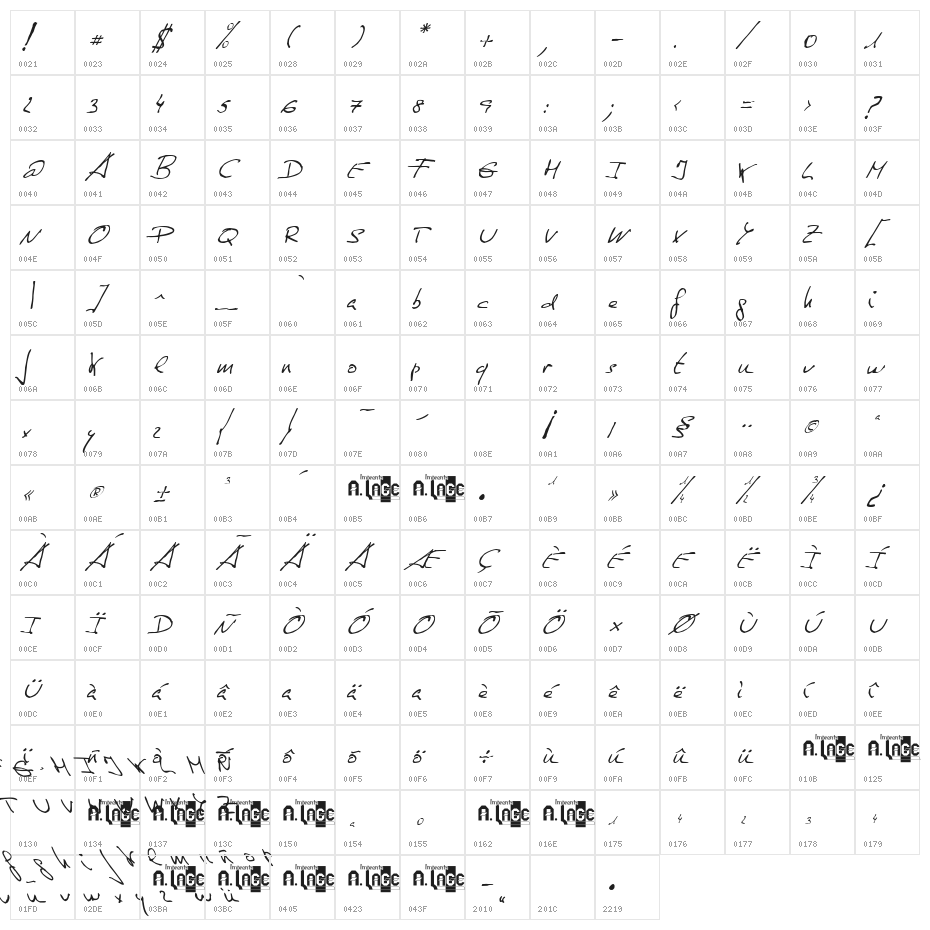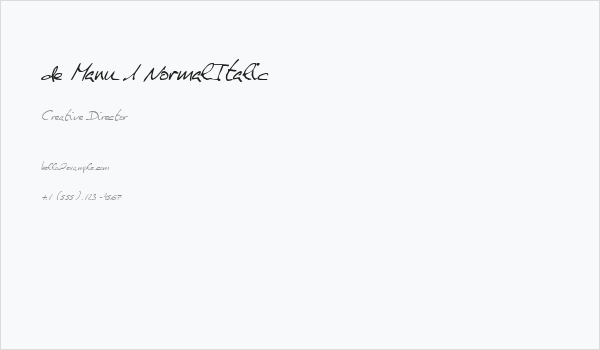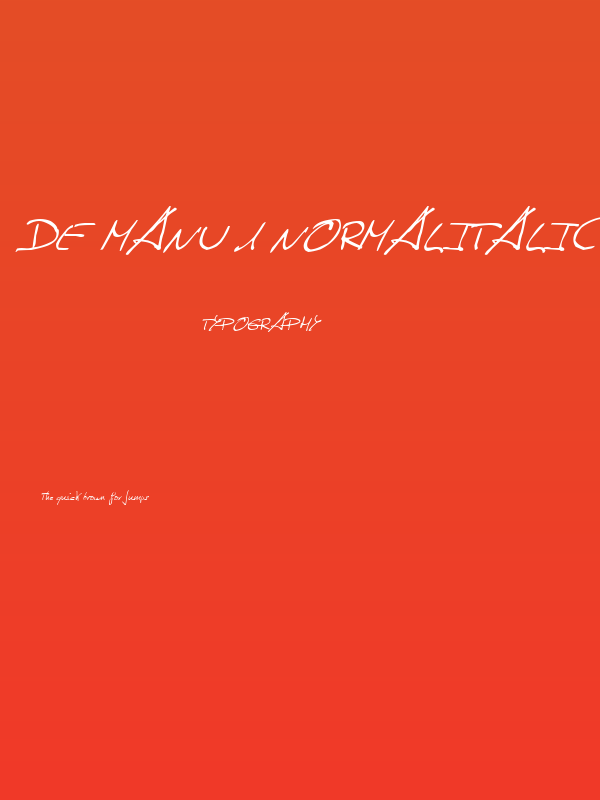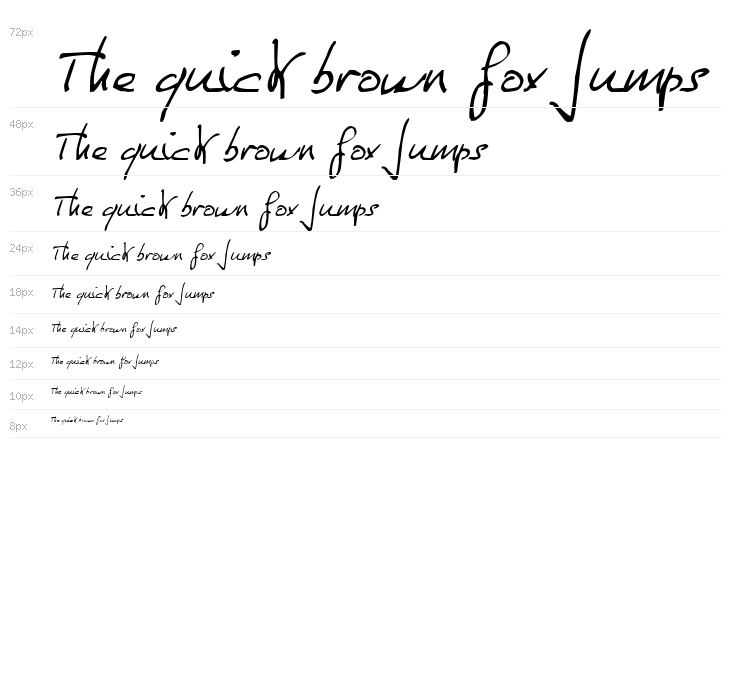
de Manu 1 NormalItalic Font
de Manu 1 NormalItalic Description
This font features a dynamic and fluid handwritten style, characterized by its italicized form and expressive strokes. The uppercase letters exhibit a bold presence with sweeping curves and distinctive angles, while the lowercase letters maintain a consistent flow, enhancing readability. Numbers are crafted with a similar flair, ensuring they integrate seamlessly with the alphabetic characters. The special characters retain the font's overall aesthetic, providing a cohesive look across all glyphs. This font's unique style makes it suitable for creative projects that require a personal touch.
| Proposed Projects | Ideal for personal branding, creative invitations, artistic posters, and expressive social media graphics. |